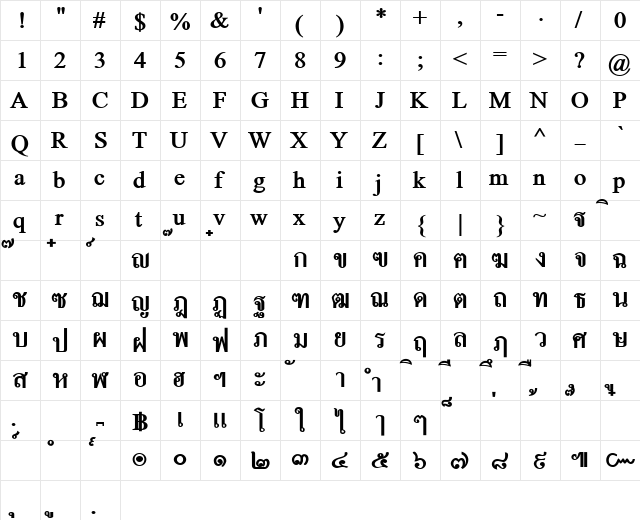
KK-Jaksu Regular
Design Context for KK-Jaksu Typeface
KK-Jaksu is a composed and adaptable typeface that performs quietly and consistently across a wide range of design contexts.